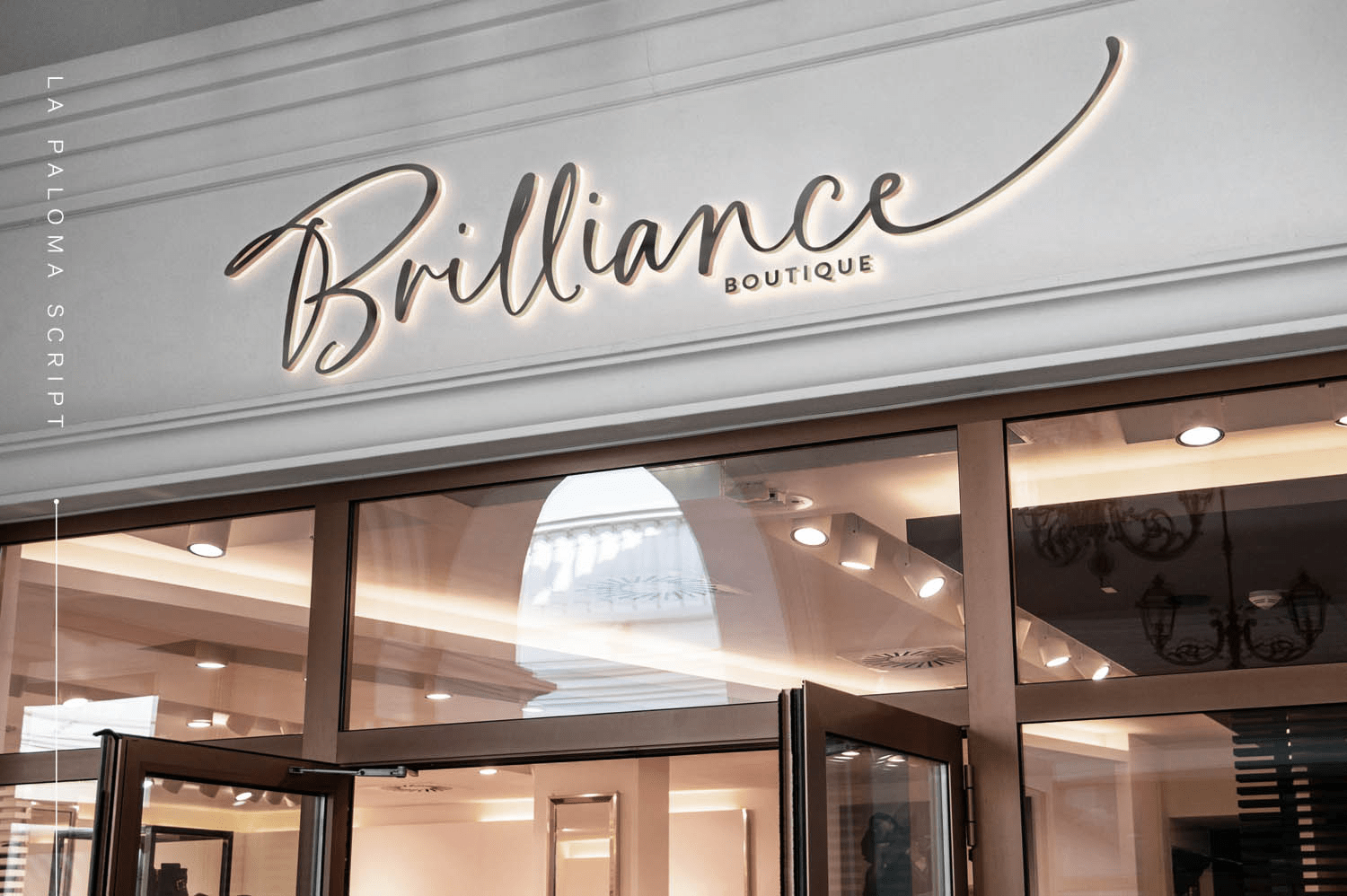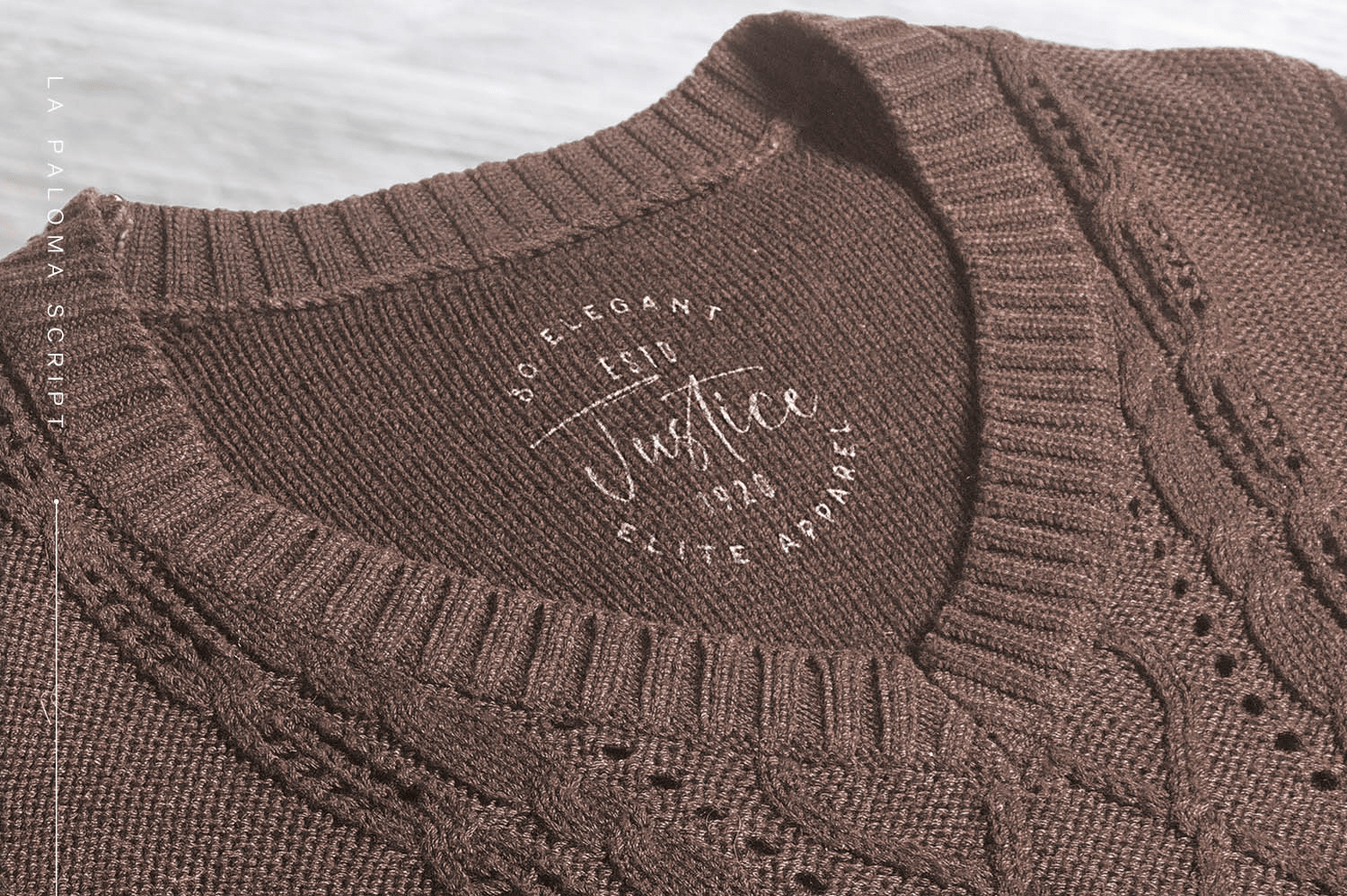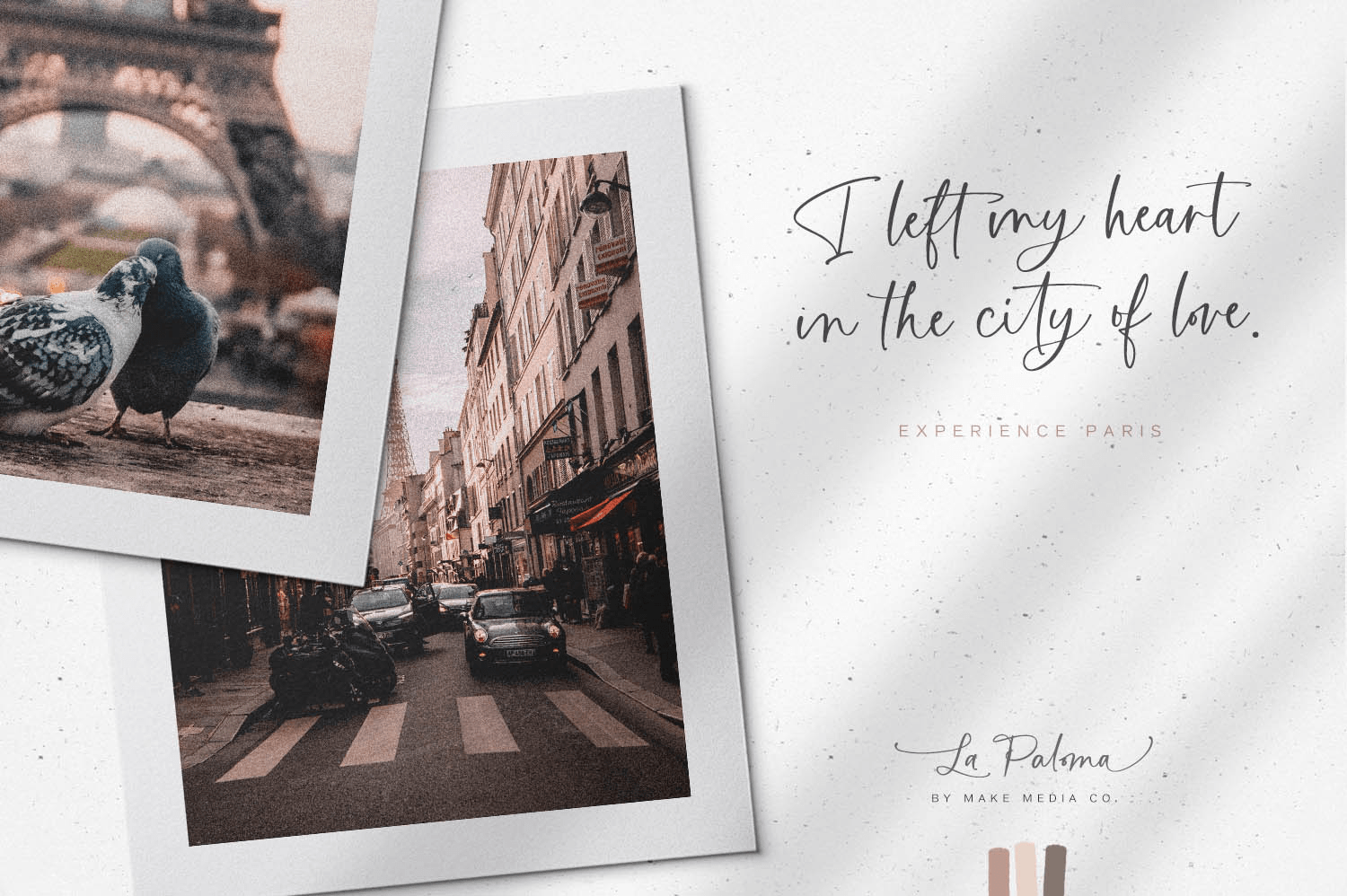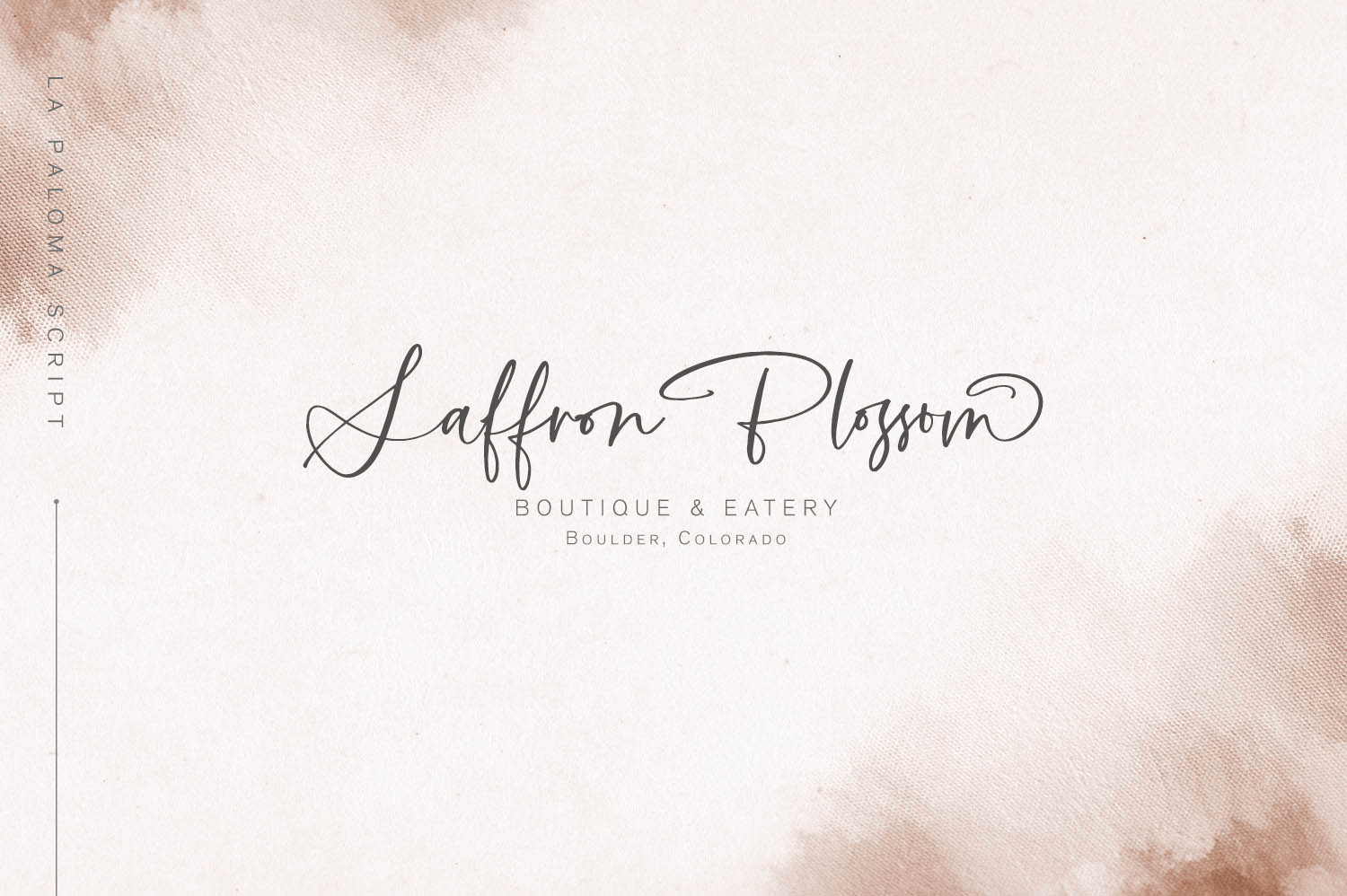
About La Paloma
Add a touch of elegance to your work with La Paloma Script – A clean, modern, hand-written typeface with over 170 Ligatures and Decorative End Characters to add a dash of luxury to any project. If you\’re looking for the perfect logo font, you just found…